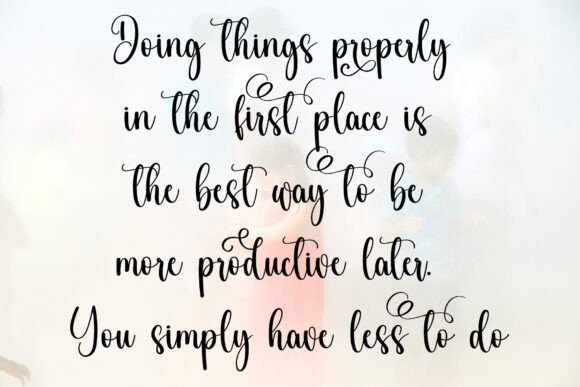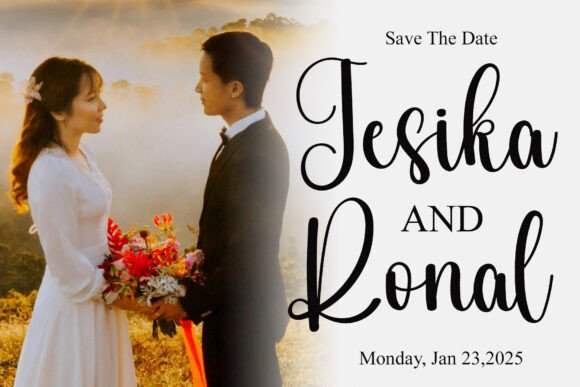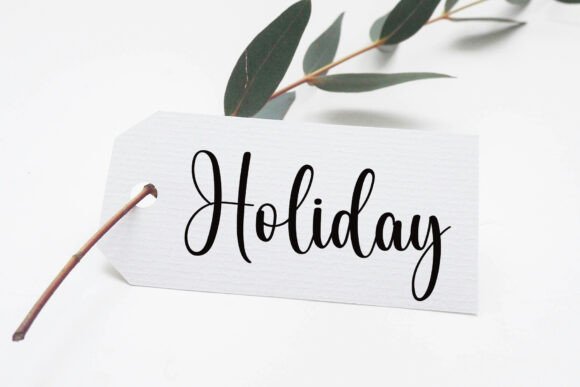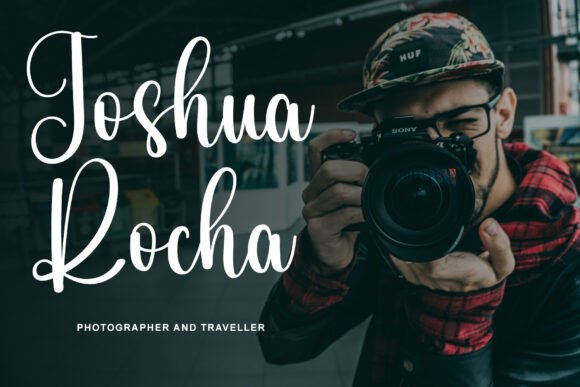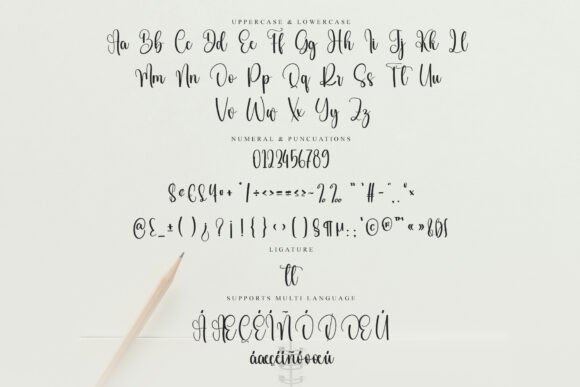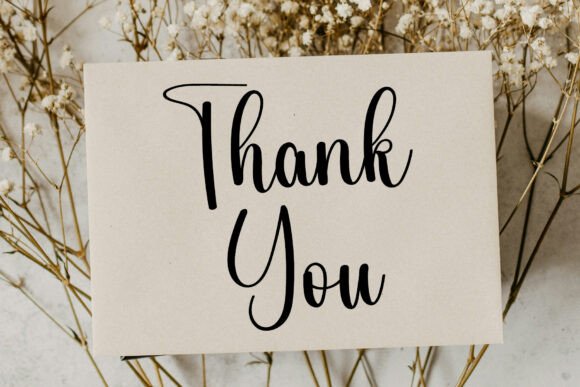
The Bride Font: A Stylish and Modern Handwritten Delight
Have you ever been in the middle of a design project, and suddenly, you’re stuck on finding the perfect font? I recall a recent experience where I was working on a wedding invitation design, and I just couldn’t seem to find a font that captured the elegance and playfulness I was looking for. That’s when I stumbled upon the Bride font, and it instantly became my go-to choice. In this article, I’ll share my experience with the Bride font, its features, and how to make the most of it in your designs.
What I Love About Bride Font
- ✨ Stylish and modern handwritten look: The Bride font boasts a beautiful, cursive script that’s perfect for a wide range of applications, from greeting cards to headlines, branding, and packaging.
- ✅ PUA encoded for easy access to glyphs and ligatures: The font is PUA (Private Use Area) encoded, which means you can easily access all the amazing glyphs and ligatures without any hassle.
- 💕 Perfect for wedding and romantic designs: The font’s elegant and playful vibe makes it an excellent choice for wedding-related designs, such as invitations, save-the-date cards, and more.
While the Bride font is an excellent choice, there are a few minor quirks to be aware of:
- ⚠️ Limited use for body text: Due to its cursive nature, the Bride font might not be the best choice for lengthy body text. It’s better suited for headings, titles, and short paragraphs.
- 🤔 Some characters may require manual adjustment: As with any font, you might need to manually adjust some characters to achieve the perfect kerning and spacing.
The Designer Inspiration Behind Bride Font
The Bride font was created with the intention of capturing the elegance and playfulness of handwritten scripts. The designer aimed to create a font that’s both stylish and modern, perfect for a wide range of creative projects. Whether you’re a designer, crafter, or creative hobbyist, the Bride font is sure to bring a touch of happiness to your designs.
Q: What is the Bride font best suited for?
A: The Bride font is perfect for a wide range of applications, including greeting cards, headlines, branding, packaging, and wedding-related designs.
Q: Is the Bride font PUA encoded?
A: Yes, the Bride font is PUA encoded, making it easy to access all the amazing glyphs and ligatures.